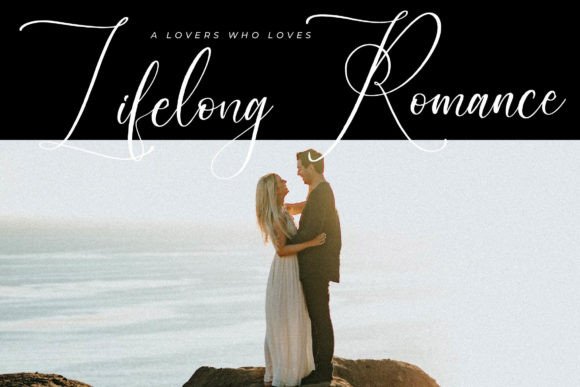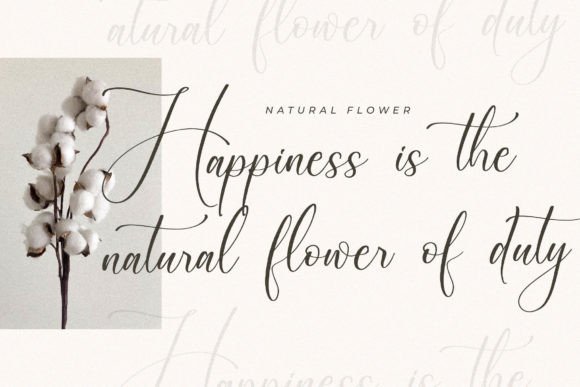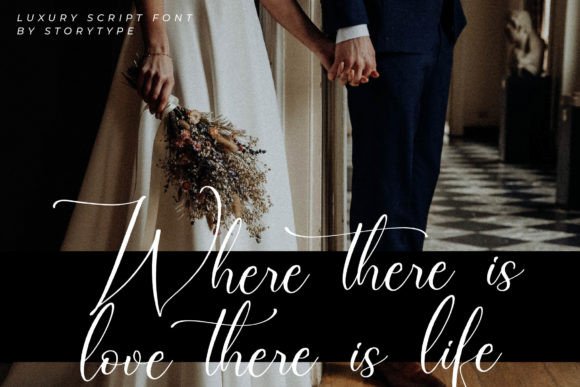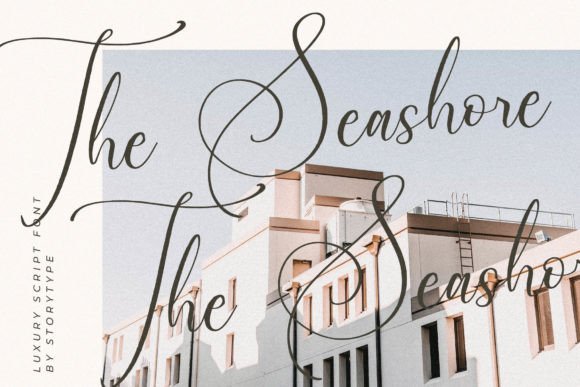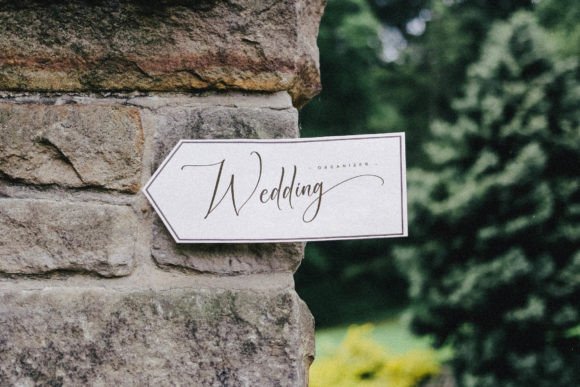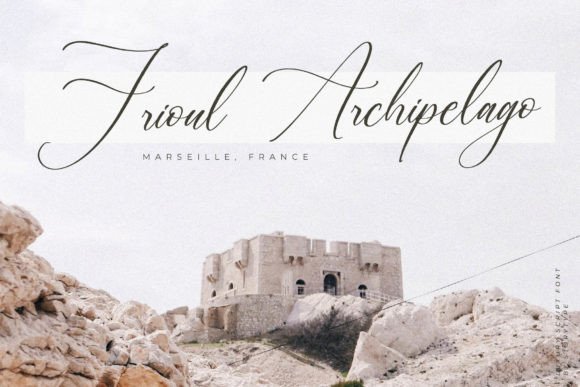
Unleashing Creativity with the Blacksttam Font
As a designer, there’s nothing quite like the thrill of stumbling upon the perfect font to bring a project to life. It’s that moment when the pieces fall into place, and your vision starts to take shape. For me, it was a late-night search for a luxurious script font that would elevate my latest logo design. And then, I found it – the Blacksttam Font.
This stunning typeface is more than just a pretty face; it’s a game-changer for designers looking to add a touch of elegance and sophistication to their work. With its unique style and modern look, the Blacksttam Font is perfect for a wide range of applications, from luxury logo designs to book and movie title designs, fashion brands, and more.
Blacksttam Font Key Features
- Unique Characteristics: Hand-drawn, calligraphic feel with bold and elegant lines
Designer Review: Blacksttam Font
Overall, I’m impressed with the Blacksttam font. ✨ Its unique blend of modern and vintage elements makes it perfect for creating eye-catching designs that stand out from the crowd. The font’s irregular shapes and textures add a touch of sophistication, while its clean lines keep the overall look balanced.
One of the things that works well in the Blacksttam font is its flexibility. ✨ It can be used for a wide range of designs, from headlines and titles to body text and even logos. The font’s versatility makes it a great addition to any designer’s toolkit.
- Unique blend of modern and vintage elements
- Irregular shapes and textures add sophistication
- Clean lines keep the overall look balanced
- Flexibility in use (headlines, titles, body text, logos)
- May not be suitable for text-heavy designs (difficult to read in large blocks)
- Some letters may require adjustments for optimal spacing
- Limited language support (may not be available in all languages)
- May require additional styling for optimal legibility
Overall, the Blacksttam font is a great addition to any designer’s toolkit. While it may have some limitations, its unique style and flexibility make it a valuable asset for creating eye-catching designs.
Tips for Getting the Most Out of Blacksttam Font
To get the most out of Blacksttam font, consider the following tips:
- Use Blacksttam font for headings and titles to add a touch of sophistication.
- Pair Blacksttam font with a clean and minimalist design to create a modern look.